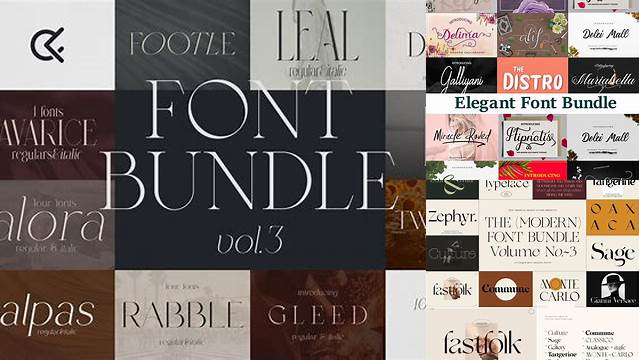
Hey design enthusiasts, are you ready to take your creative projects to the next level? We've got something special for you today: a modern elegant font bundle available for free download! This bundle is packed with stylish and sophisticated fonts perfect for a wide range of applications, from branding and marketing materials to personal projects and everything in between. Let's dive deep into what makes this font bundle a must-have for every designer and creative individual.
This modern elegant font bundle isn't just a random collection of fonts; it's a carefully curated selection of typefaces designed to complement each other and elevate your design work. Inside, you'll find a variety of font styles, including elegant serifs, sleek sans-serifs, stylish script fonts, and versatile display fonts. Each font has its unique personality, but they all share a common thread: a touch of modern elegance. The fonts are designed to enhance your creative projects. Think about it: these fonts can be used for logos, website headers, social media graphics, invitations, and so much more. With such a diverse range of fonts, you'll be able to find the perfect typeface for any project that you can imagine. This free font bundle is created to get your design to the next level, and you can get creative with it. This bundle is a valuable resource for both experienced designers and those just starting their creative journeys.
Imagine designing a brand identity with a sophisticated serif font for your logo, complemented by a clean sans-serif for body text, and a beautiful script font for headlines. This bundle allows you to easily mix and match fonts to create visually stunning and cohesive designs. The fonts are meticulously chosen to enhance readability and aesthetic appeal, ensuring your message is delivered with style and clarity. The beauty of this bundle lies in its versatility. The fonts included have been handpicked for their ability to work across different design genres, from minimalist designs to more elaborate, decorative pieces. You'll find fonts suitable for luxury branding, fashion, lifestyle, and more. So, no matter your project, this bundle will give you a significant head start in achieving a professional and polished look. Plus, the accessibility of a free download means you can experiment and explore without any financial commitment. Feel free to try out different combinations and see what works best for your particular needs. This also gives you the opportunity to discover new favorite fonts that will become staples in your design toolkit. Don't miss out on this amazing opportunity to enhance your creative projects!
Why Choose Modern Elegant Fonts?
Why choose modern elegant fonts over other styles? The answer is simple: they offer a timeless aesthetic that can elevate any design. Modern elegant fonts have a certain sophistication and charm that can instantly make your designs look more professional and appealing. These fonts are characterized by clean lines, balanced proportions, and a touch of flair, making them incredibly versatile for various design projects. They seamlessly blend classic design principles with contemporary styles, making them perfect for any project. Whether you're working on a branding project for a luxury brand, designing a wedding invitation, or creating social media graphics, these fonts will make your design stand out. They can easily be adapted for both digital and print applications, ensuring your brand looks consistent and professional across all platforms. These fonts communicate elegance and sophistication, which is ideal for brands trying to project an image of quality and style. In today's visually driven world, the right font can make a massive difference in how your brand is perceived. A well-chosen font conveys your brand values, attracts your target audience, and helps you stand out from the competition. With this free download, you can easily experiment with different font styles and see how they can transform your designs. Elegant fonts will bring the most important design element.
Modern elegant fonts provide designers with a way to create designs that feel both current and timeless. They are less likely to go out of style quickly compared to some trendy fonts. They are incredibly readable. A font that is easy to read ensures that your message is clear and understandable to your audience. Elegant fonts usually have excellent legibility, which ensures that your message comes across properly. A cohesive look is essential in design. A font bundle with various styles can maintain a consistent and visually appealing look across your project. This helps to strengthen brand recognition and gives the entire project a professional appearance.
Where to Use These Fonts?
The possibilities for using these modern elegant fonts are practically endless. From branding and marketing materials to personal projects, these fonts are versatile enough to enhance any design. Let's explore some of the most common applications.
- Branding & Logos: Create a unique brand identity by selecting fonts that reflect your brand's personality and values. A well-chosen font can make your logo instantly recognizable and memorable.
- Website Design: Enhance your website's visual appeal by using elegant fonts for headlines, body text, and call-to-action buttons. This can improve user experience and engagement.
- Social Media Graphics: Elevate your social media presence by using stylish fonts in your posts, stories, and advertisements. Make your content stand out in the crowded social media landscape.
- Invitations & Stationery: Design beautiful invitations, greeting cards, and stationery with elegant fonts. These fonts can add a touch of sophistication and luxury to any special occasion.
- Print Materials: Use these fonts for brochures, flyers, posters, and other print materials to create a professional and polished look. Ensure your message is delivered with style and clarity.
These are just a few examples, but the real magic happens when you start experimenting and incorporating these fonts into your own projects. The free download allows you to experiment and find the perfect font combination for your specific needs. Remember, the goal is always to create visually appealing and engaging designs that resonate with your target audience. With these modern elegant fonts, you'll be well-equipped to achieve just that. The versatility and aesthetic appeal of these fonts make them ideal for a wide range of design applications. Whether you're a seasoned professional or a creative beginner, this bundle will definitely become a valuable addition to your design toolbox. Take advantage of the opportunity and download the bundle now, and let your creativity run wild.